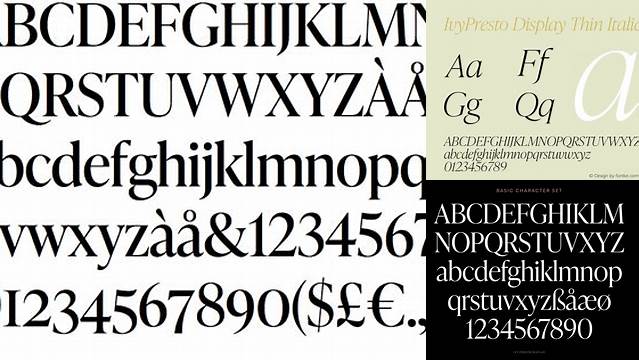
Hey guys! Are you on the hunt for a striking display font that can add a touch of elegance and modernity to your projects? Look no further! In this comprehensive guide, we'll dive deep into the world of IvyPresto, a stunning display font, and explore how you can free download it from GitHub. We’ll cover everything from its unique characteristics to its versatile applications, ensuring you have all the info you need to make the most of this amazing typeface.
1. What is IvyPresto Display Font?
IvyPresto is more than just a font; it's a statement. This display font is designed to capture attention, making it perfect for headlines, logos, and other prominent design elements. Its clean lines and distinctive letterforms give it a contemporary feel, while its subtle curves add a touch of sophistication. If you're looking for a font that's both eye-catching and elegant, IvyPresto could be your new best friend. The beauty of IvyPresto lies in its versatility. It’s not just another pretty face; it's a workhorse that can adapt to various design contexts. Whether you're working on a sleek, minimalist website or a bold, vibrant poster, IvyPresto can seamlessly integrate and enhance your vision. It’s the kind of font that elevates your project, making it look polished and professional. But what truly sets IvyPresto apart is its availability. The fact that it's offered as a free download on GitHub means that designers of all levels, from seasoned pros to enthusiastic beginners, can access and utilize this exceptional typeface. This democratization of design resources is something we deeply value, as it fosters creativity and innovation within the community. So, if you're ready to elevate your design game, let's delve deeper into what makes IvyPresto so special and how you can get your hands on it.
2. Key Features and Characteristics of IvyPresto
Let's talk about what makes IvyPresto tick. This display font boasts a unique blend of modern aesthetics and classic design principles. Its letterforms are meticulously crafted, with a keen focus on readability and visual appeal. You'll notice the clean lines, the subtle curves, and the overall sense of balance that makes IvyPresto so pleasing to the eye. One of the standout features of IvyPresto is its versatility. It’s not a one-trick pony; this font can adapt to a wide range of design styles and applications. Whether you're designing a logo, a website headline, or a poster, IvyPresto can deliver the impact you're looking for. It's the kind of font that can be both bold and refined, depending on how you use it. Another key characteristic of IvyPresto is its excellent legibility. Despite its decorative nature, the font remains highly readable, even at smaller sizes. This makes it a practical choice for a variety of design projects, ensuring that your message is not only stylish but also clear and understandable. The distinctive character of IvyPresto also comes from its attention to detail. Each glyph has been carefully designed to complement the others, creating a cohesive and harmonious typeface. This attention to detail is what sets IvyPresto apart from many other display fonts, giving it a professional and polished look. In short, IvyPresto is a font that’s both beautiful and functional, making it a valuable addition to any designer's toolkit. Its unique blend of modern and classic elements, combined with its versatility and legibility, make it a true standout in the world of typography. And the best part? You can get it as a free download on GitHub!
3. Why Choose IvyPresto for Your Projects?
Okay, so you know what IvyPresto is, but why should you actually choose it for your projects? Great question! There are several compelling reasons why IvyPresto stands out as an excellent choice for designers looking to make a statement. First and foremost, IvyPresto offers a unique aesthetic that can elevate your designs. Its modern yet elegant character makes it perfect for projects that need a touch of sophistication and style. Whether you're designing a brand identity, a website, or marketing materials, IvyPresto can help you create a visual impact that resonates with your audience. Another key advantage of IvyPresto is its versatility. This font isn't limited to a specific design style or industry. It can be used in a wide range of projects, from corporate branding to creative advertising campaigns. Its adaptability makes it a valuable asset for any designer who wants a font that can handle various design challenges. The free availability of IvyPresto on GitHub is another major draw. In a world where high-quality fonts often come with a hefty price tag, IvyPresto offers a fantastic alternative that doesn't compromise on quality. This makes it an especially attractive option for students, freelancers, and small businesses that are working with limited budgets. Beyond its aesthetic appeal and cost-effectiveness, IvyPresto also boasts excellent readability. This is crucial for any font, especially those used in display contexts. IvyPresto's clear and well-defined letterforms ensure that your message is easily understood, even at a glance. In conclusion, IvyPresto is a font that offers a winning combination of style, versatility, and affordability. Its unique character, combined with its practicality and accessibility, makes it a top choice for designers who want to create impactful and memorable designs. So why not give IvyPresto a try? You can download it for free on GitHub and see how it transforms your projects.
9. Best Practices for Using Display Fonts Like IvyPresto
22. Case Studies: Successful Designs Using IvyPresto
Let's get inspired! Sometimes, the best way to understand a font's potential is to see how it's been used in real-world projects. Here are a few hypothetical case studies showcasing successful designs that leverage IvyPresto's unique charm. **Case Study 1: